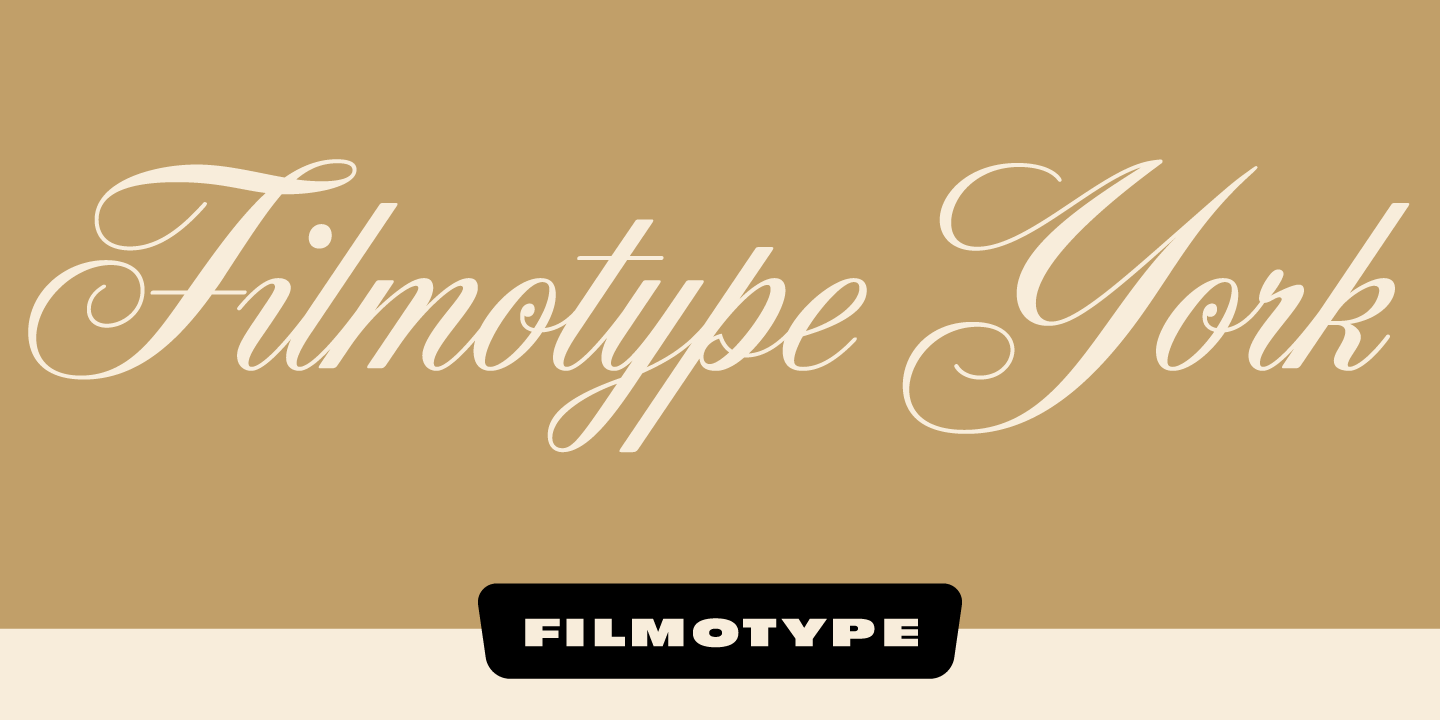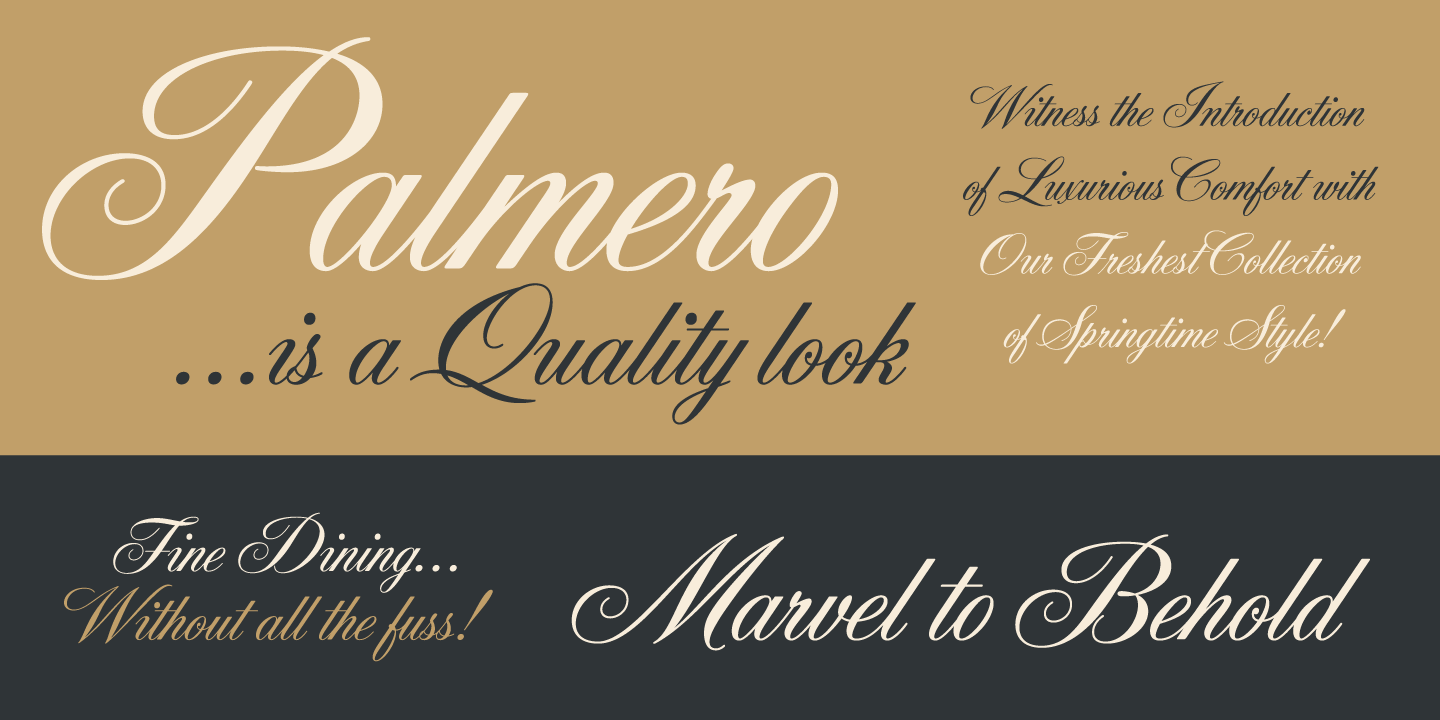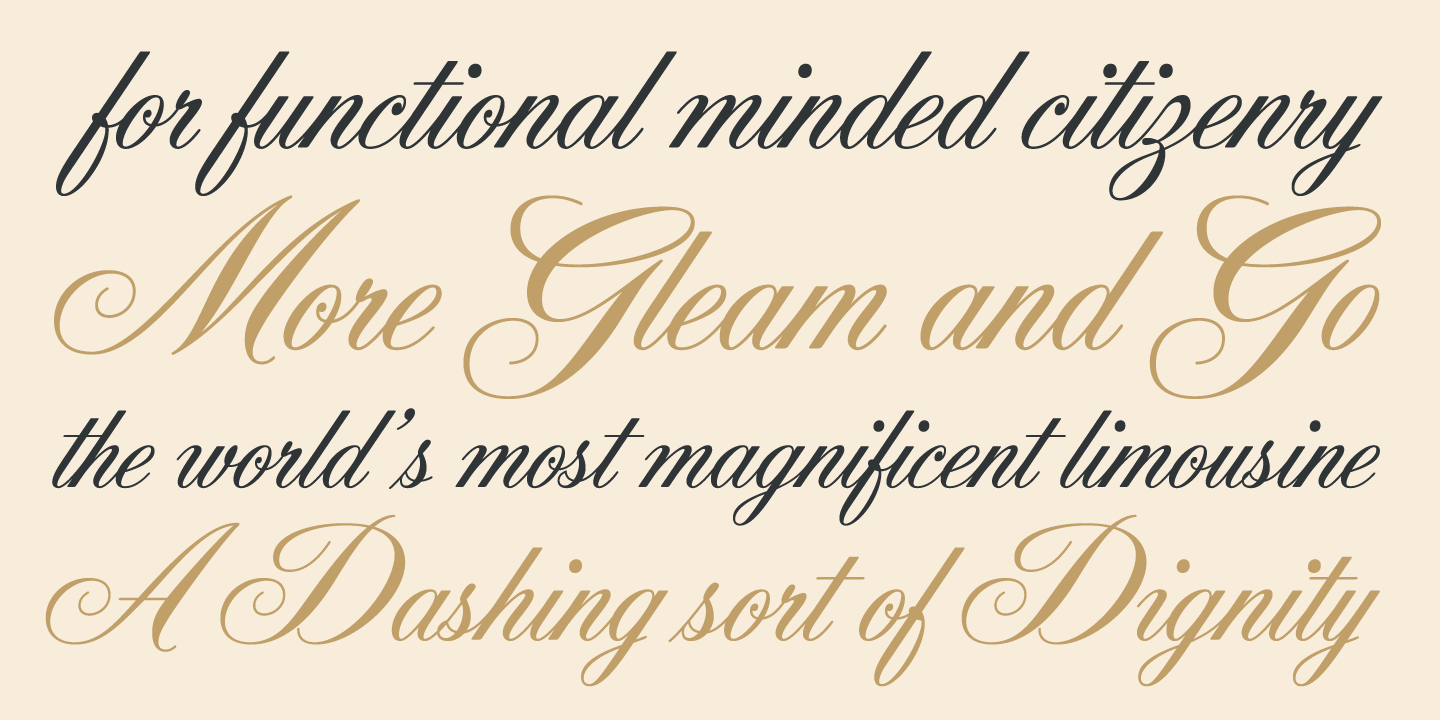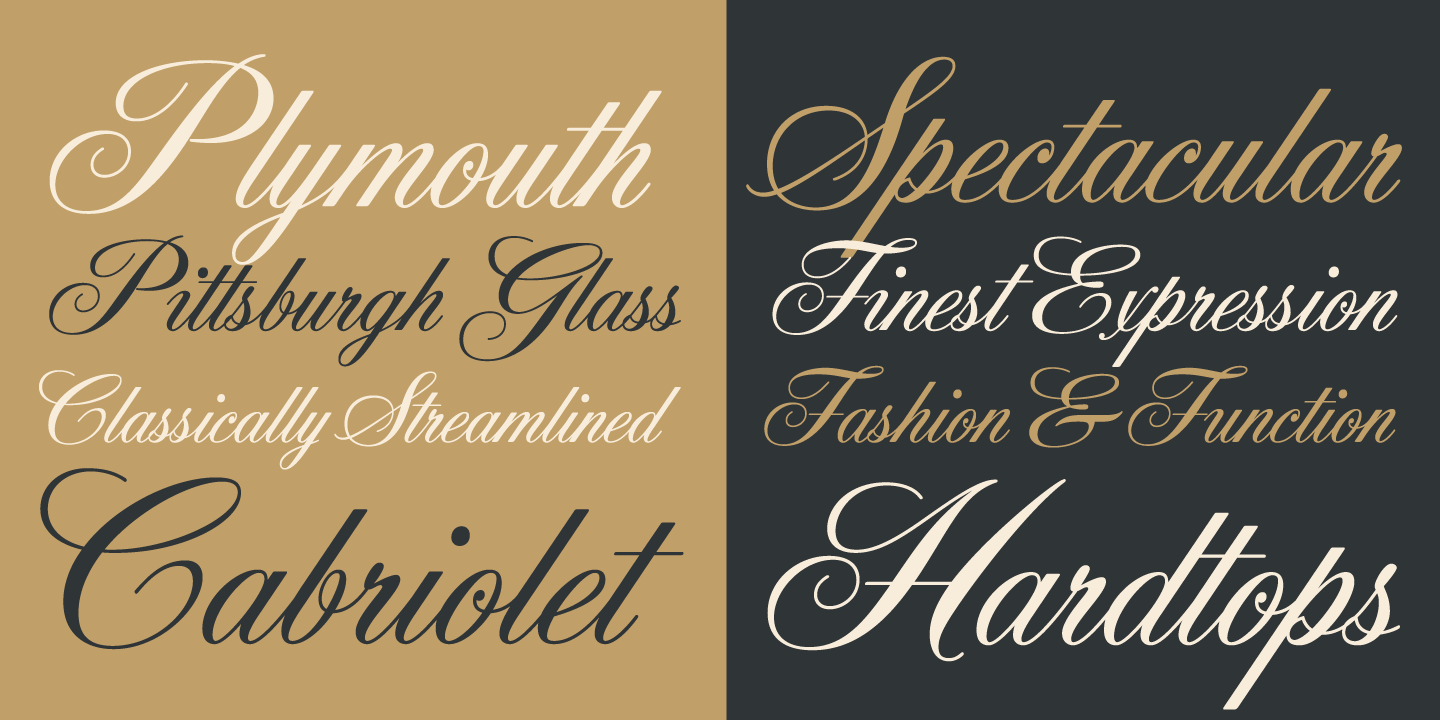
Filmotype York
Offered by Filmotype in the late 1950s to establish its Formal Script category with this copperplate script, Filmotype York is perfect for formal wedding invitations and formal or elegant occasions while retaining a balanced weight making it both visually stylistic and readable at smaller sizes.
Filmotype York was developed from the original font filmstrips and includes a full international character compliment, automatic fractionals, ordinals, and an expansive set of alternate contextual and ending characters and ligatures to allow flawless typesetting in dynamic OpenType format.